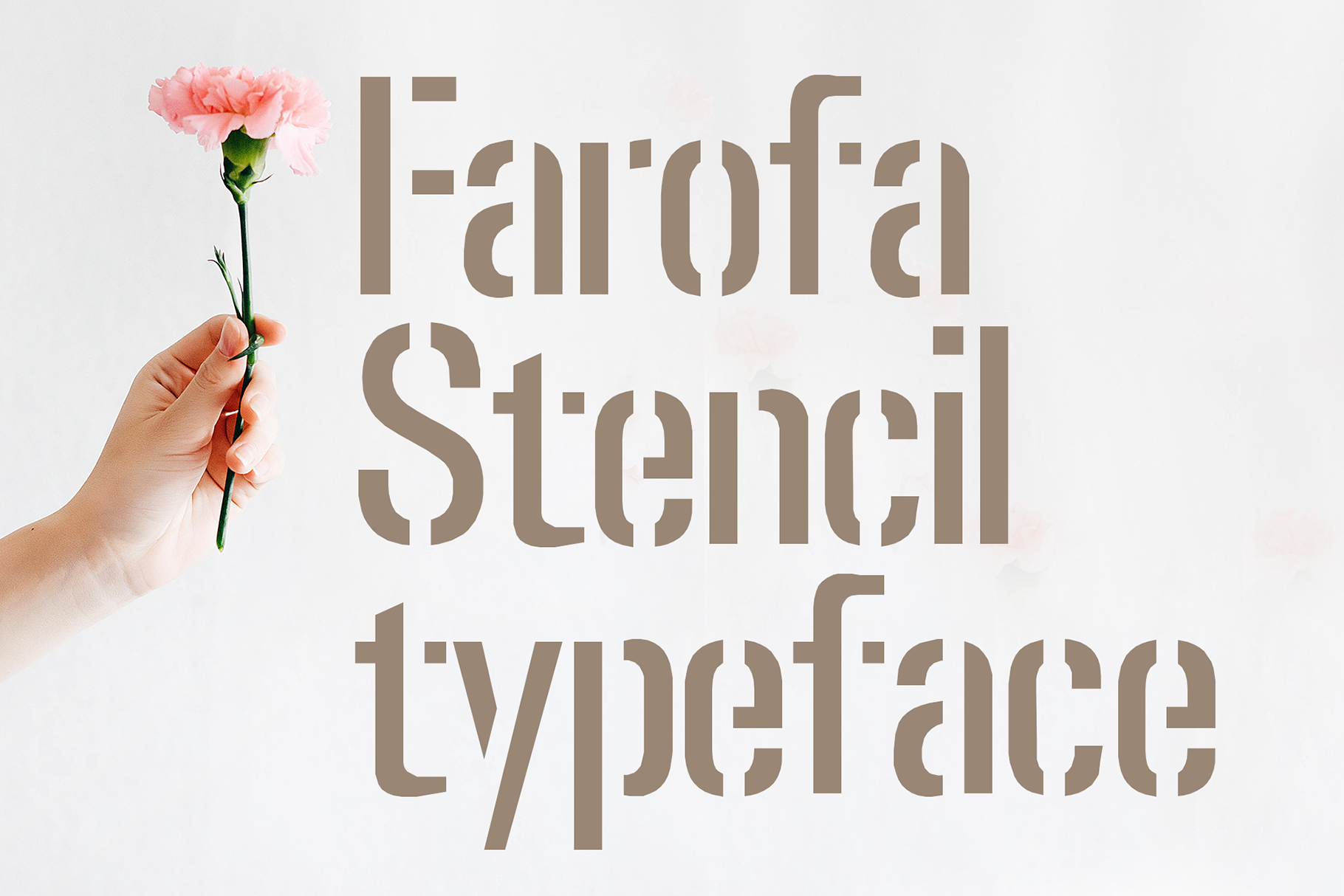
Farofa - stencil typeface
Farofa is a stencil font. It is very light and sometimes modern. Farofa is delicious as the brazilian food it is named after.
- Regular and Italic